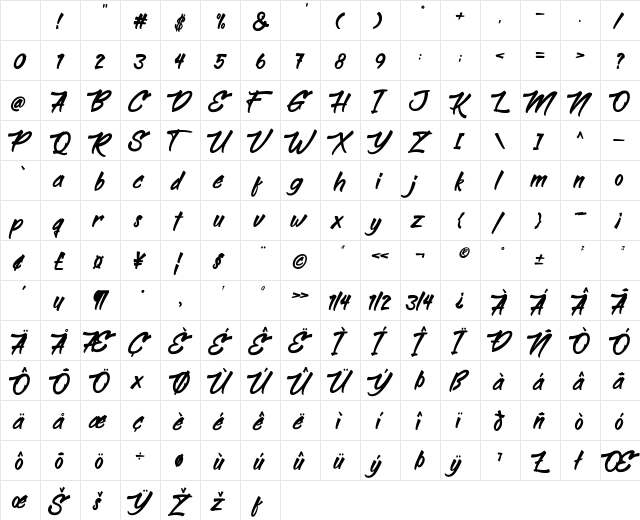
Complete Bethsy Bethsy glyph index. Displaying only characters natively supported by Bethsy Bethsy font.
Bethsy is a composed and adaptable typeface that performs quietly and consistently across a wide range of design contexts.
Who designed the Bethsy Bethsy font?